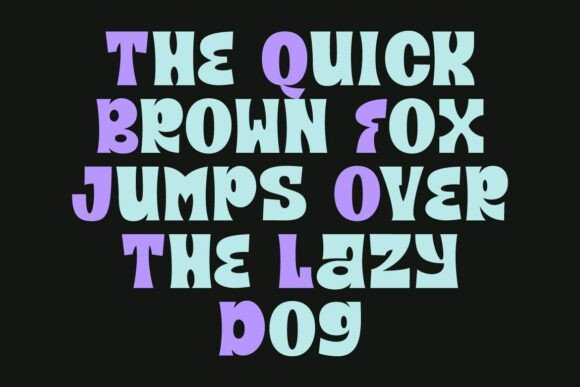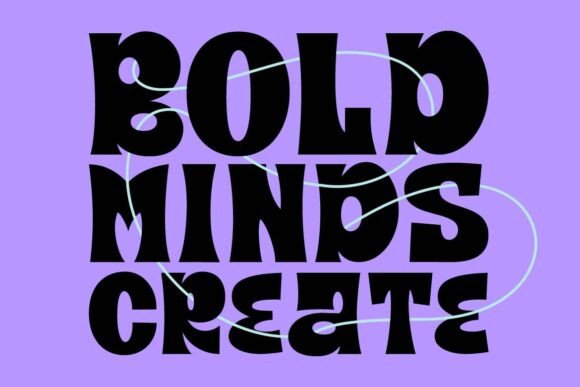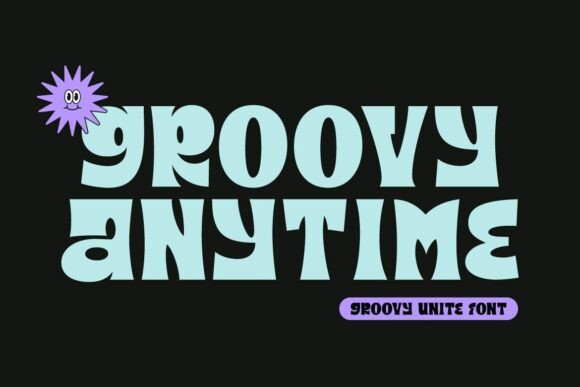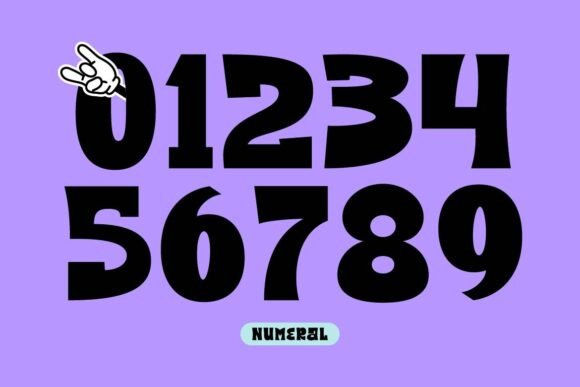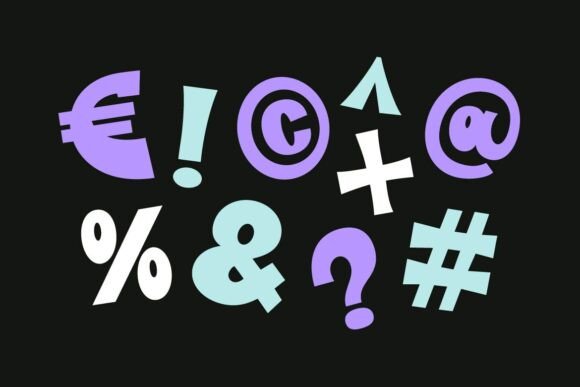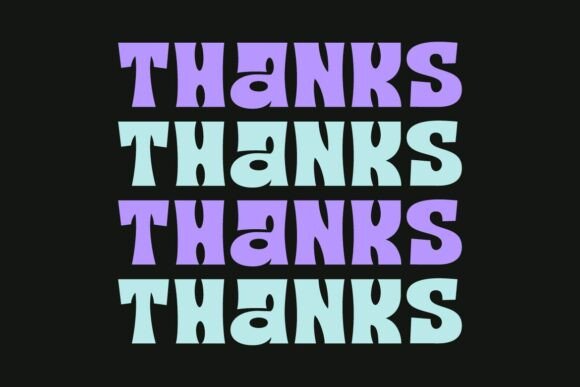
Introducing Groovy Unite Font: The Perfect Blend of Retro and Modern Styles
In the world of typography, fonts play a crucial role in conveying the tone and aesthetic of a design. For designers and crafters looking for a unique typeface that combines the best of both worlds – retro and modern styles – Groovy Unite Font is an excellent choice. This font has gained popularity for its distinctive blend of a modern touch with a groovy aesthetic, making it perfect for a variety of creative projects.
The Unique Characteristics of Groovy Unite Font
Groovy Unite Font stands out for its ability to merge a retro-cool feel with a contemporary design approach. At first glance, it bears a resemblance to a sans serif font, which gives it a clean and modern look. However, upon closer inspection, the font reveals its groovy, vintage-inspired elements that add a touch of nostalgia to any design. This blend of styles makes Groovy Unite Font versatile and suitable for a wide range of applications, from branding and advertising to packaging and digital media.
Why Choose Groovy Unite Font?
There are several reasons why Groovy Unite Font has become a go-to choice for designers and crafters:
- Retro-Modern Appeal: Groovy Unite offers a unique blend of vintage and modern styles, making it perfect for projects that require a nostalgic touch with a contemporary twist.
- Versatility: The font’s versatility allows it to be used in various creative projects, including logos, posters, flyers, and digital media.
- Legibility: Despite its decorative elements, Groovy Unite maintains a high level of legibility, making it suitable for both headlines and body text.
- Easy to Pair: The font can be easily paired with other typefaces to create a contrasting yet harmonious design.
Applications of Groovy Unite Font
Groovy Unite Font’s unique aesthetic makes it an excellent choice for a variety of design projects, including:
- Branding and Logo Design: Create a memorable brand identity with a logo that combines vintage charm with a modern edge.
- Posters and Flyers: Add a touch of nostalgia to your promotional materials while maintaining a contemporary look.
- Digital Media: Use Groovy Unite Font in your website designs, social media graphics, and video content to stand out.
- Crafting and DIY Projects: Perfect for crafters who want to add a personal touch to their projects, such as handmade cards, scrapbooking, and more.
Tips for Using Groovy Unite Font Effectively
To get the most out of Groovy Unite Font, consider the following tips:
- Mix and Match: Combine Groovy Unite with other fonts to create visual interest and hierarchy in your design.
- Play with Colors: Experiment with different color schemes to enhance the retro or modern aspects of the font.
- Adjust Letter Spacing: Fine-tune the letter spacing to ensure optimal readability and aesthetic appeal.
Groovy Unite Font is a unique and versatile typeface that offers the perfect blend of retro and modern styles. Its distinctive aesthetic makes it an excellent choice for designers and crafters looking to add a touch of nostalgia with a contemporary twist to their projects. With its wide range of applications and ease of use, Groovy Unite Font is sure to become a staple in your design toolkit.